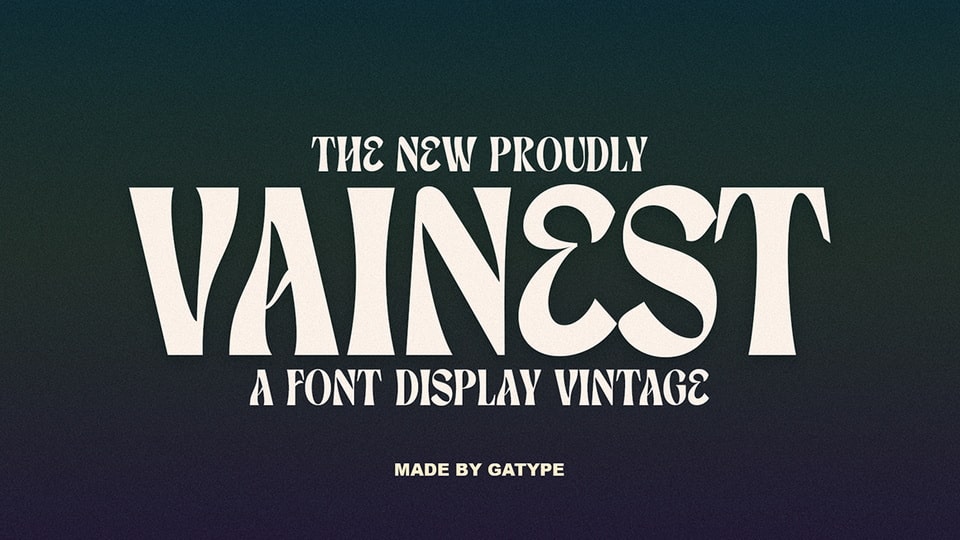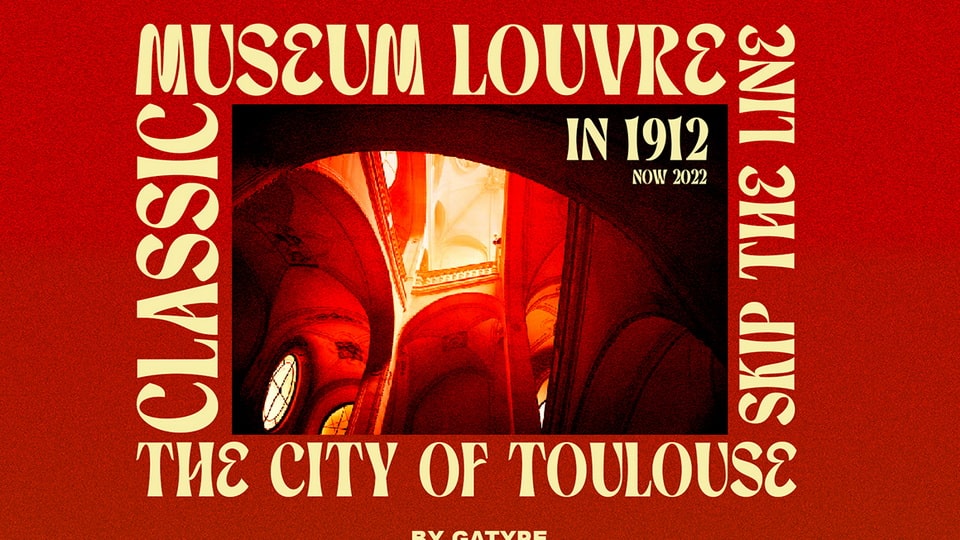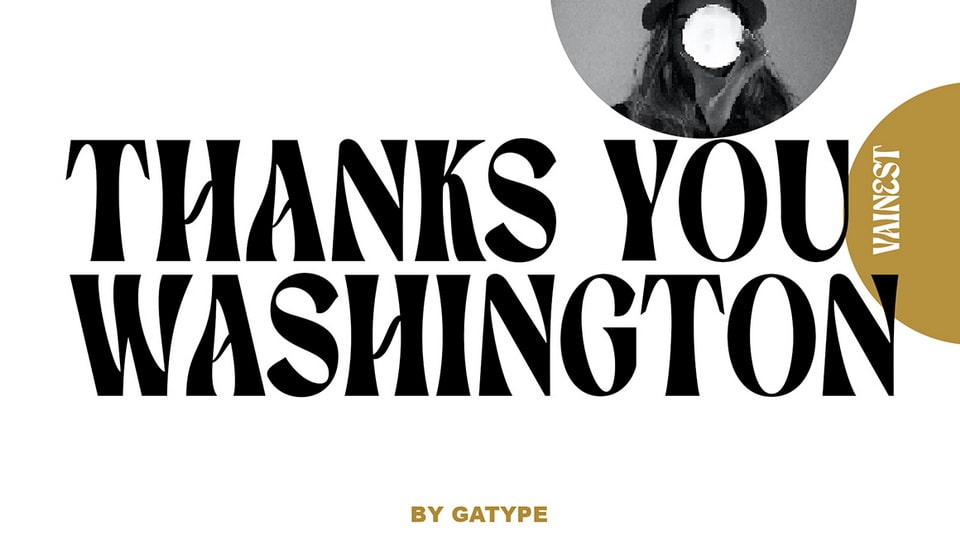
Vainest is a vintage-style display font with a modern and retro look. Comes with different styles and helps you create amazing logos, quotes, posts, blog posts, branding projects, magazine imagery, book and billboard displays, and more.